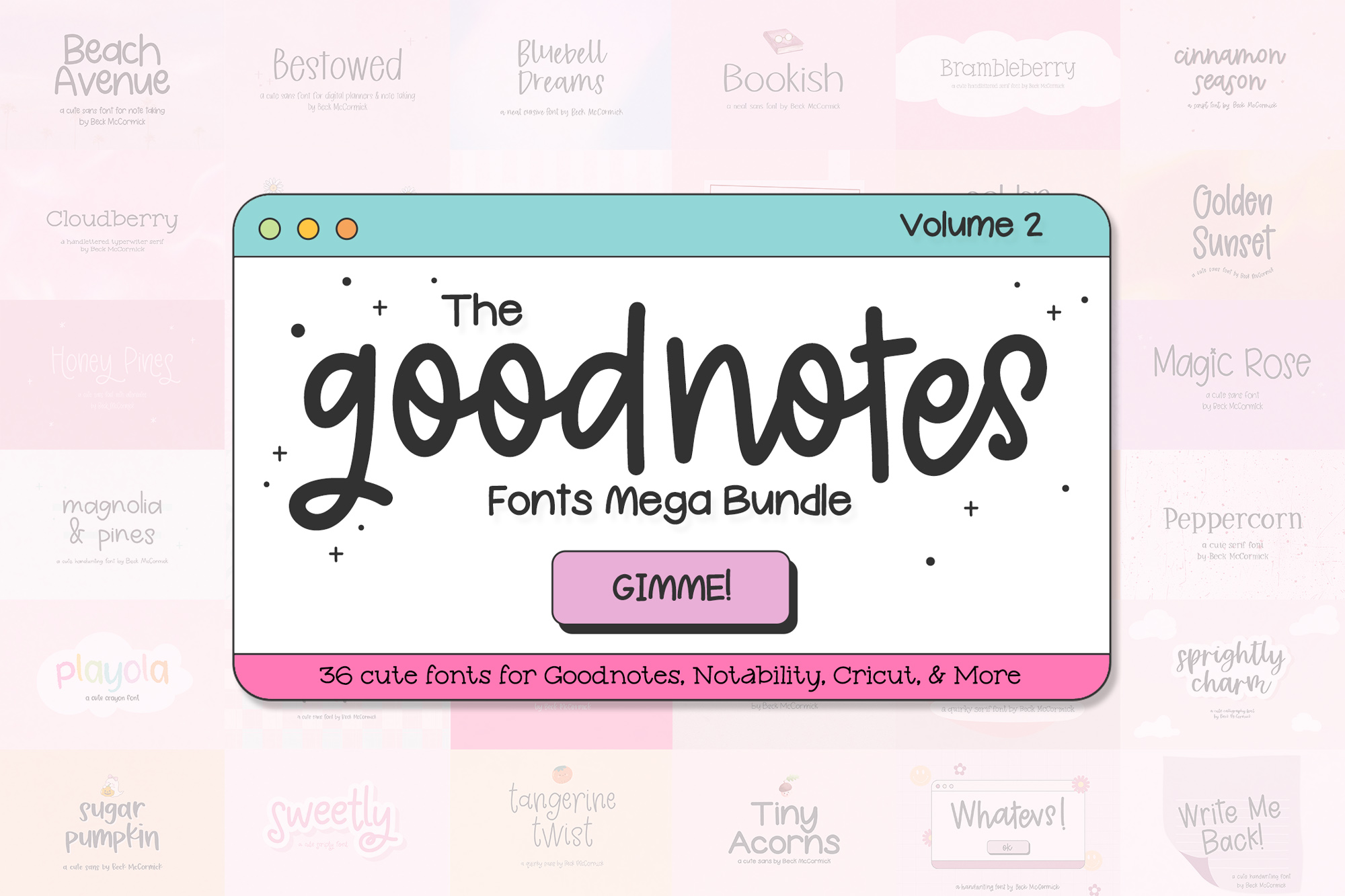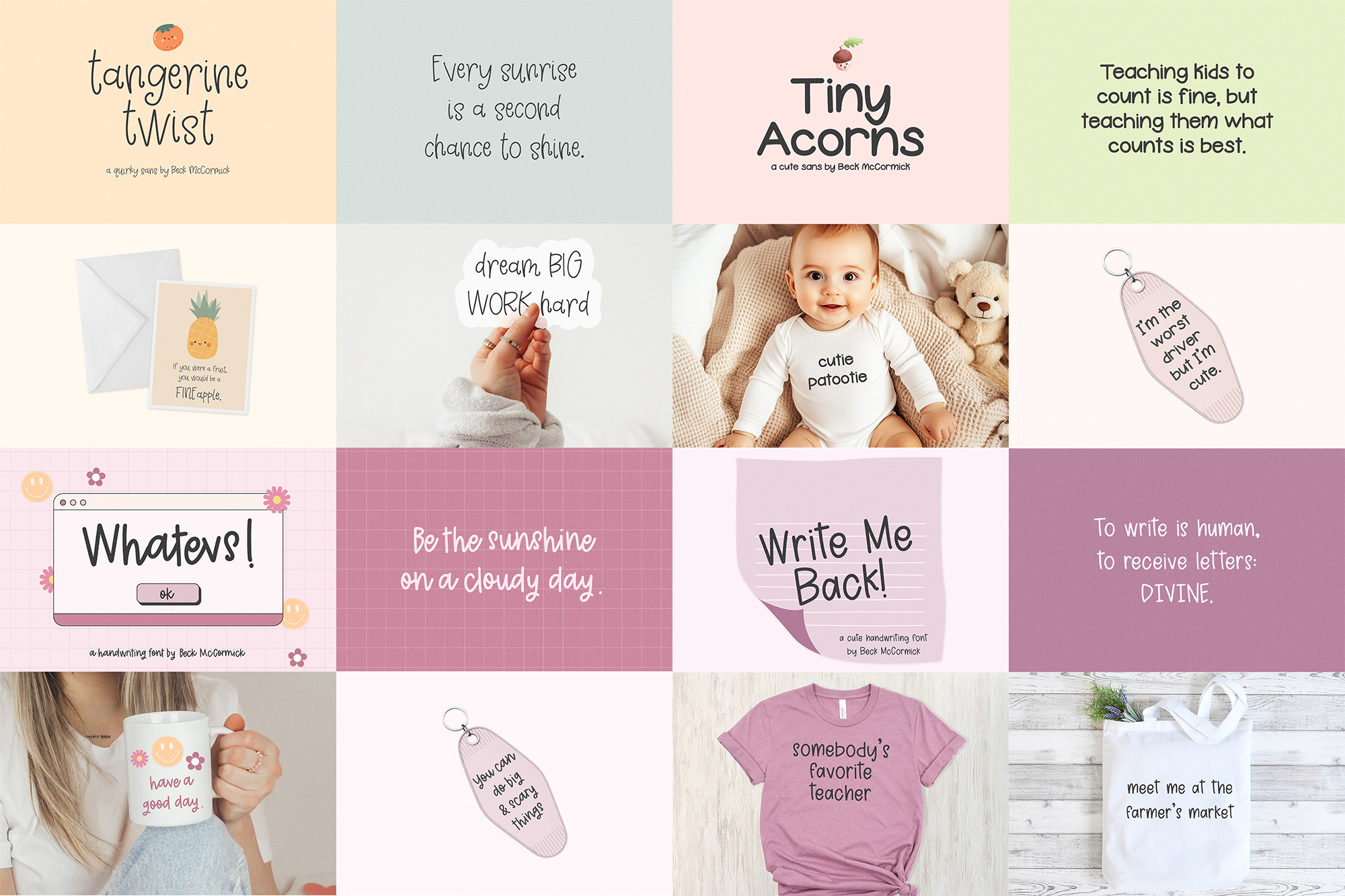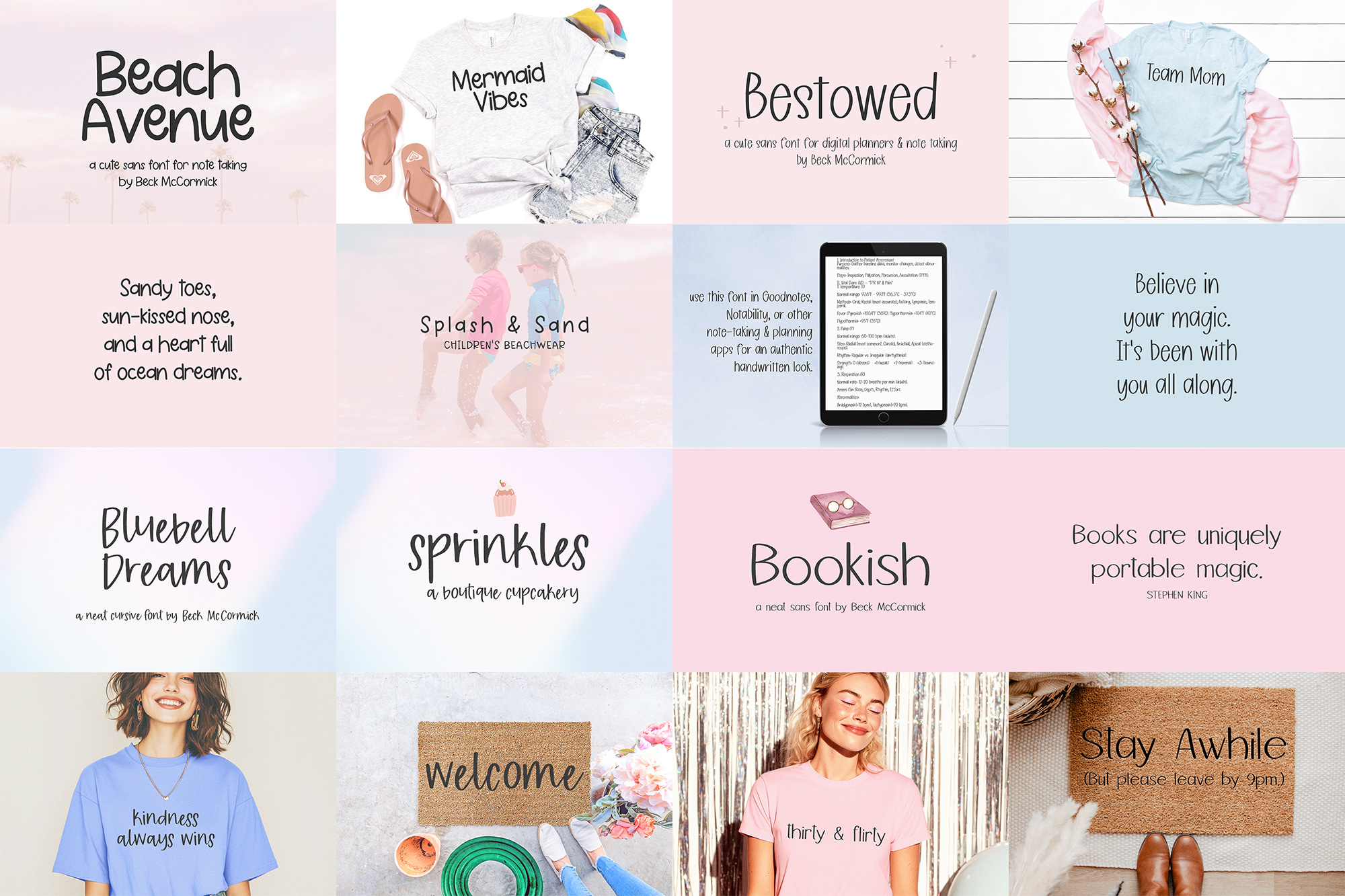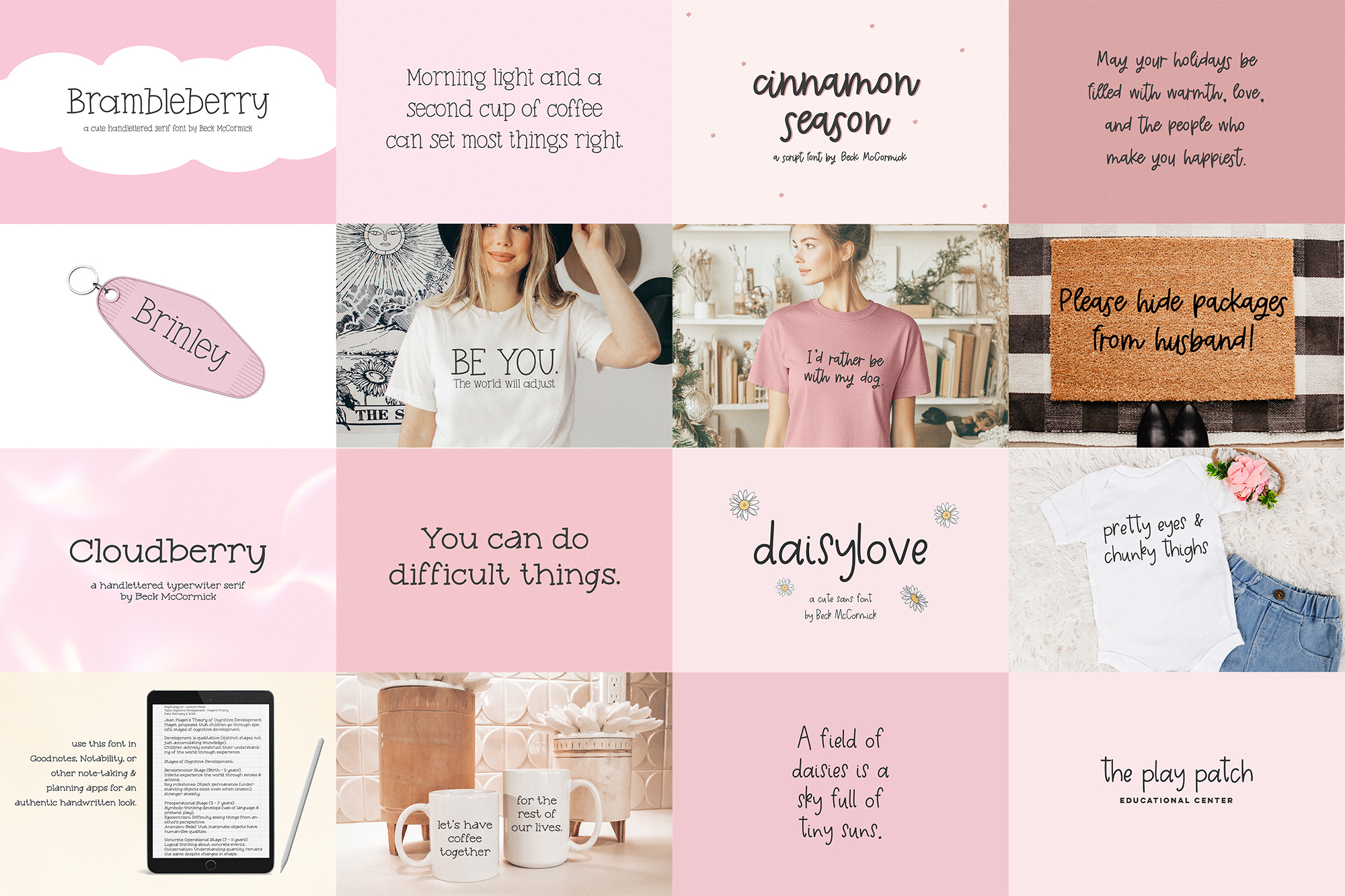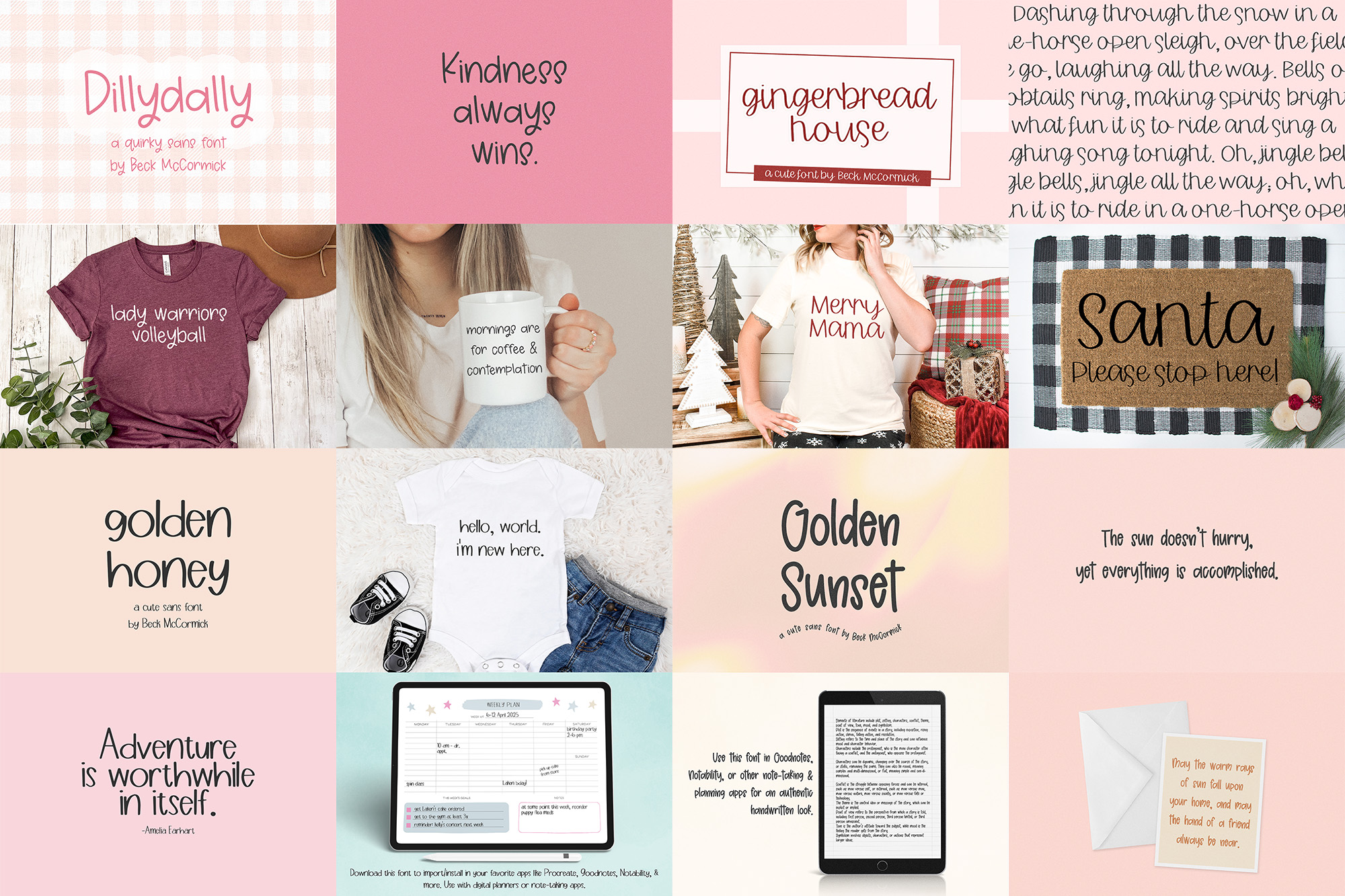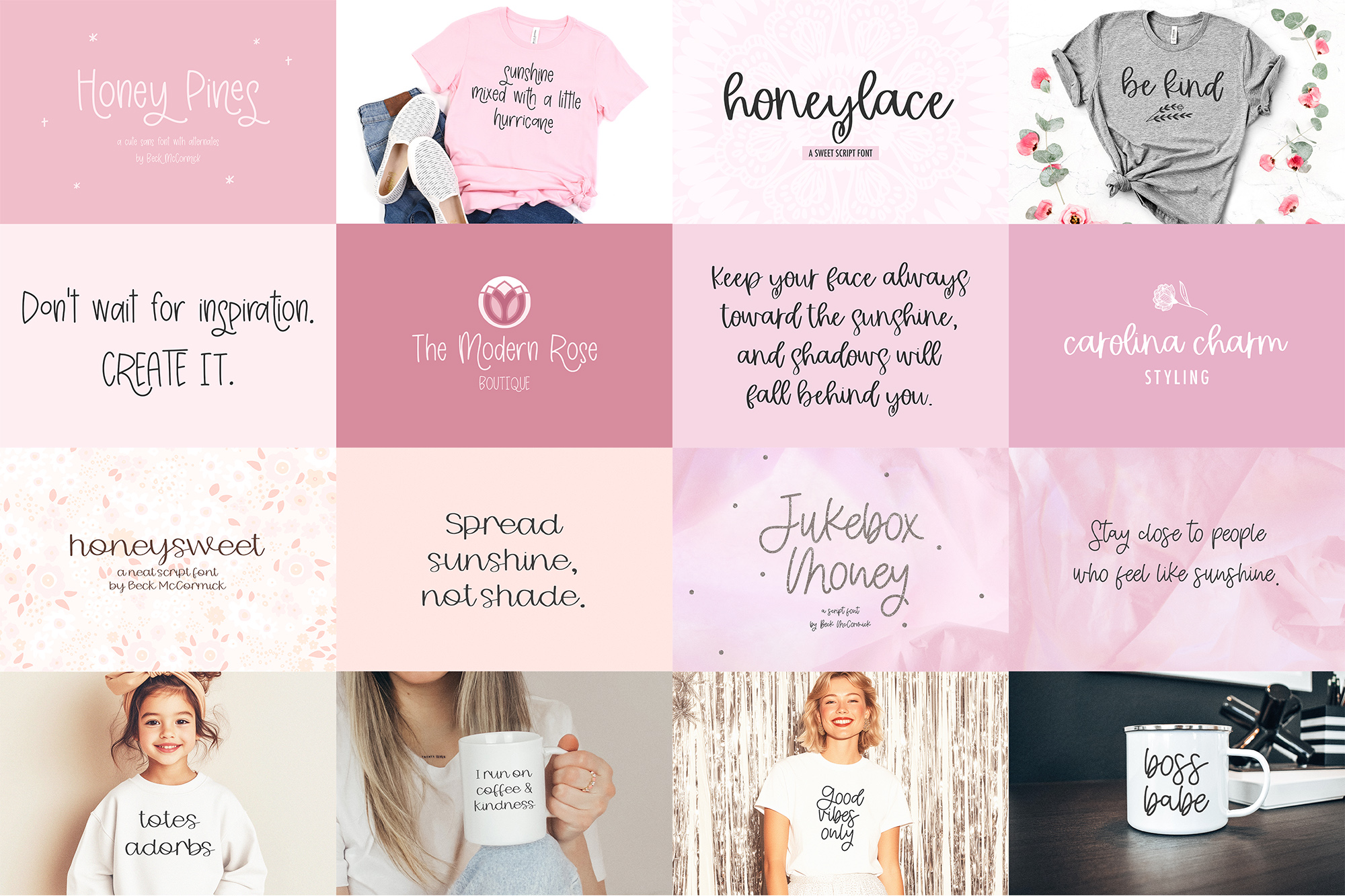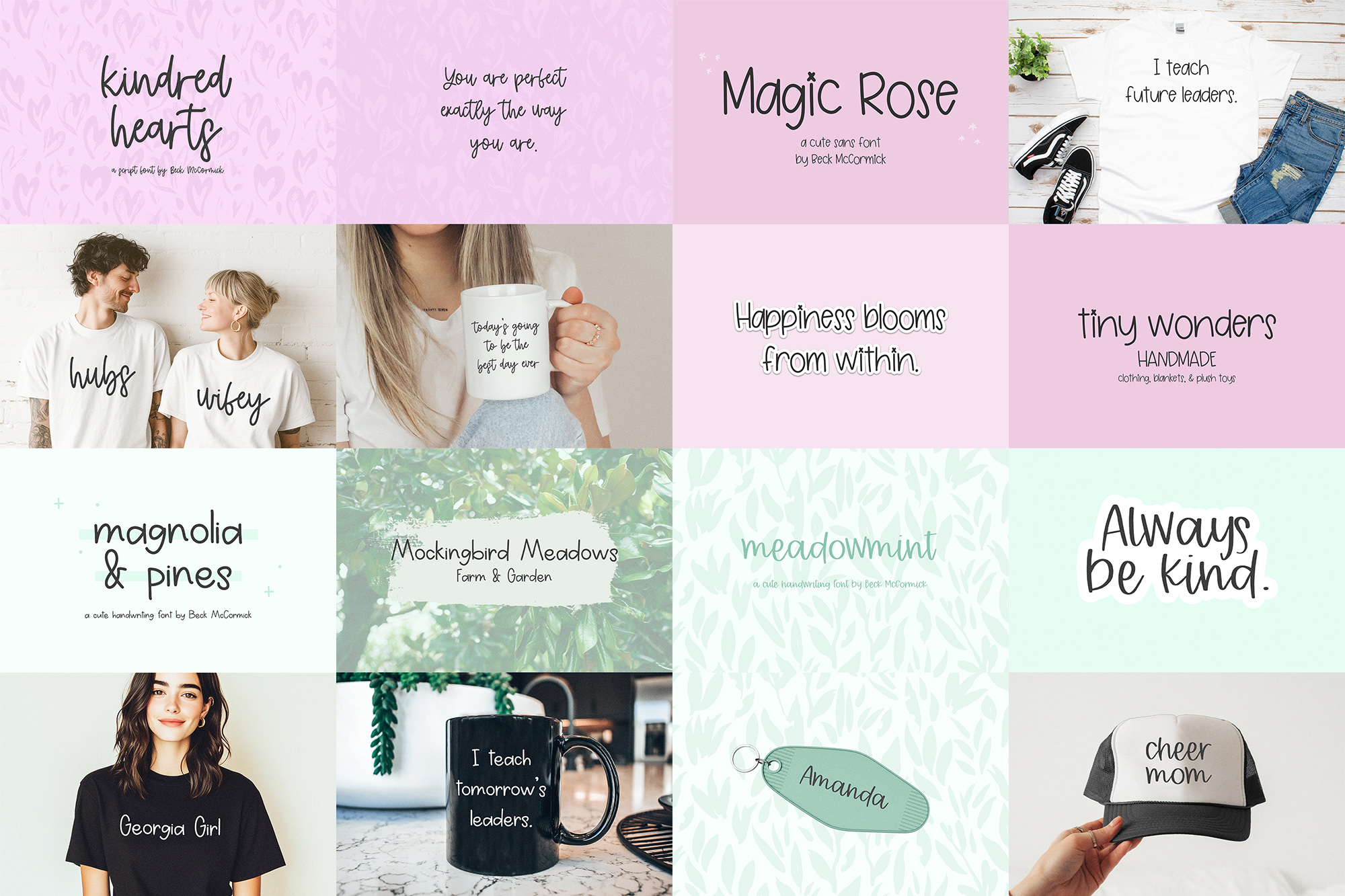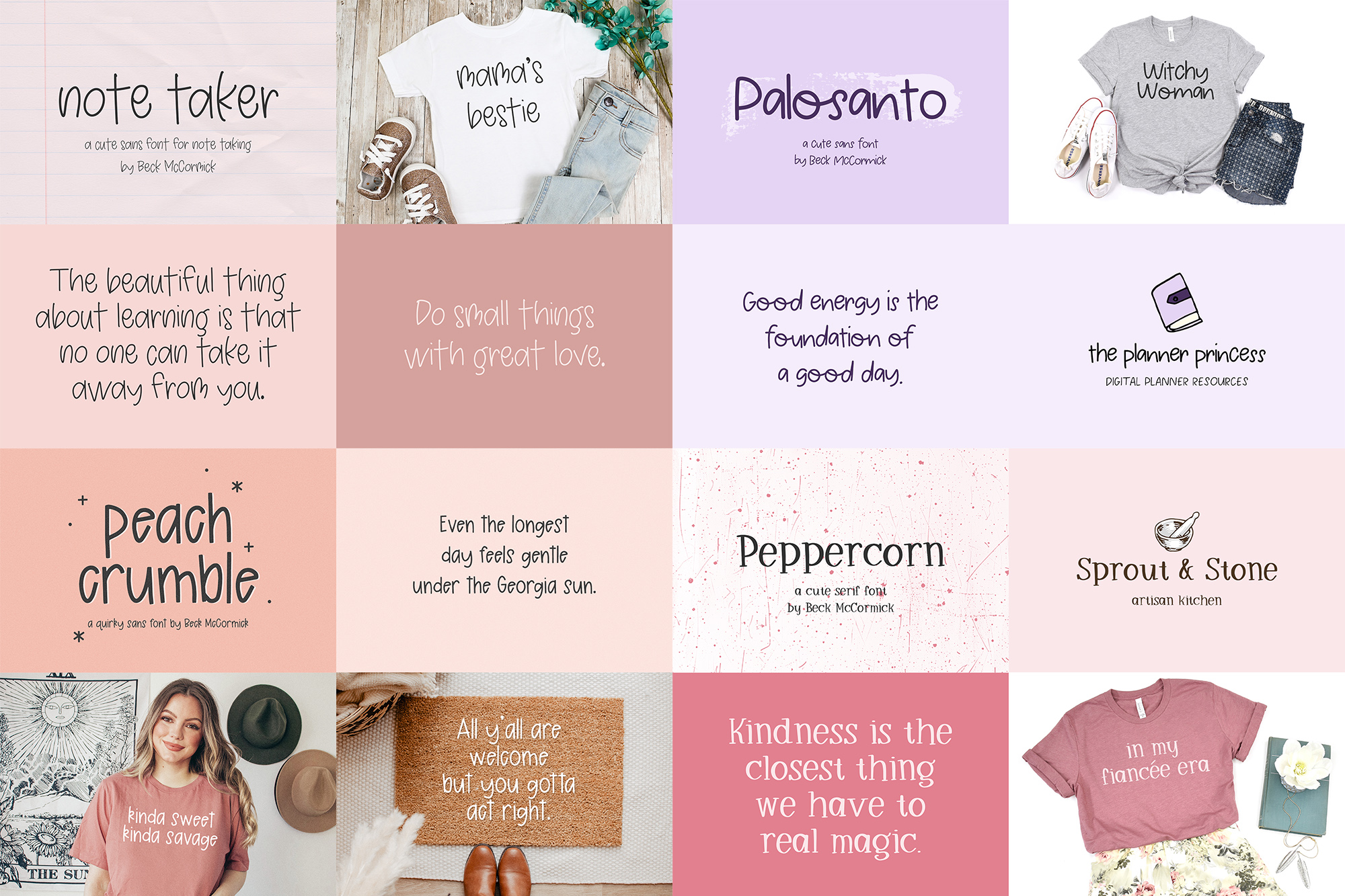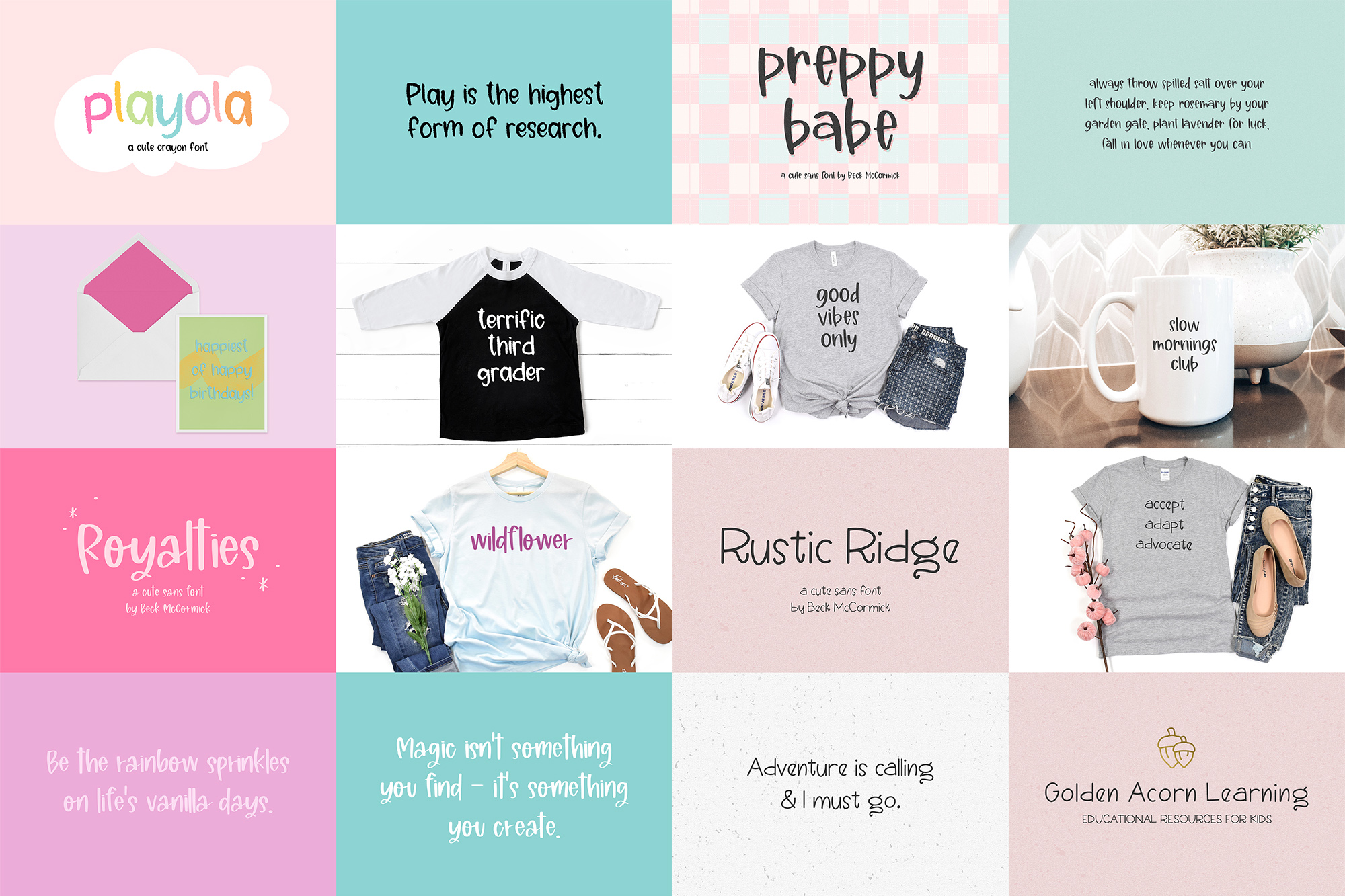
The Goodnotes Fonts Mega Bundle, Volume 2
Start your year organized & inspired with 36 Goodnotes fonts! Perfect for digital planning, Notability, Canva, Procreate, Cricut & more.
Beach Avenue
Bestowed
Bluebell Dreams
Bookish
Brambleberry
Cinnamon Season
Cloudberry
Daisylove
Dillydally
Gingerbread House
Golden Honey
Golden Sunset
Honeylace
Honey Pines
Honeysweet
Jukebox Money
Kindred Hearts
Magic Rose
Magnolia and Pines
Meadowmint
Note Taker
Palosanto
Peach Crumble
Peppercorn
Playola
Preppy Babe
Royalties
Rustic Ridge
September Market
Sprightly Charm
Sugar Pumpkin
Sweetly
Tangerine Twist
Tiny Acorns
Whatevs
Write Me Back
This bestselling collection includes 36 premium planner fonts designed to elevate your digital notes, planners, and creative projects. Whether you’re organizing your life in Goodnotes, creating lesson plans, or designing in Procreate, Canva, or Photoshop, these fonts are the perfect fit for every digital creator.
• 36 bestselling handwriting & cursive fonts
• Mix of neat, legible handwriting fonts and fun, playful cursive styles